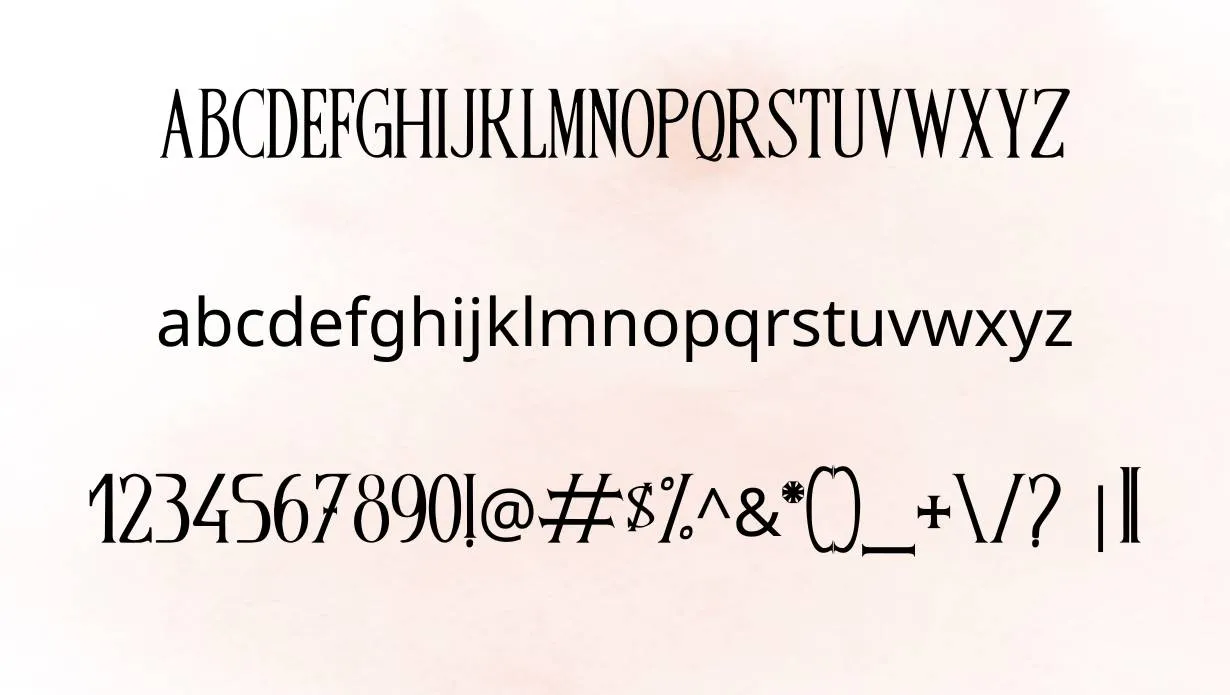
The Band of Reality font exudes boldness and an adventurous spirit, feeling ready for action-packed journeys. Within Adobe Photoshop, it crafts bold and striking designs, perfect for visually encapsulating daring and adventurous themes.Â
Its CSS integration lends a bold and daring touch to web elements, promising to engage and captivate audiences. In Canva, it’s ideal for designing thrilling social media posts or creating bold event promotions that evoke a sense of excitement and adventure.
| Name | Band of Reality Font |
| Designer | Thomas Boucherie |